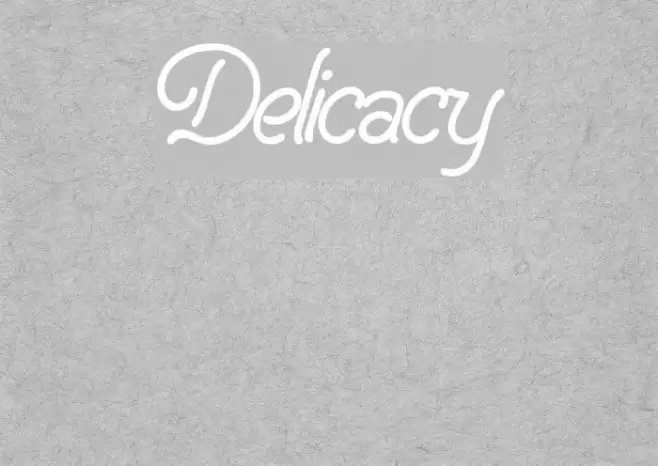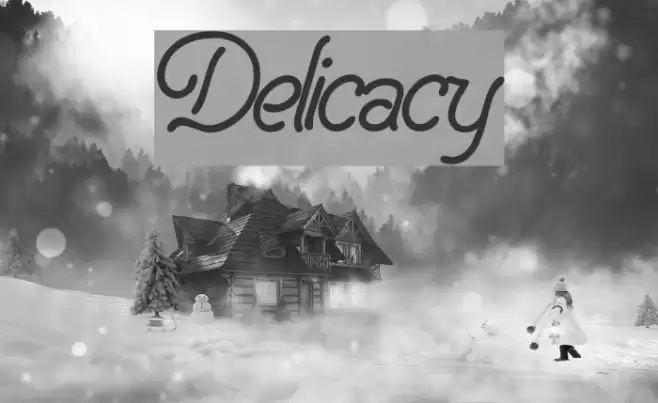
Delicacy Font
Delicacy Description
This font features an elegant and flowing script style, characterized by its smooth, cursive letterforms. The uppercase letters exhibit a graceful, looping design, while the lowercase letters maintain a consistent, fluid motion. The numerals are designed with a similar cursive flair, adding to the overall cohesive appearance. Special characters are crafted with the same attention to detail, ensuring a harmonious look throughout. The font's delicate strokes and subtle curves make it ideal for projects requiring a touch of sophistication and elegance.
An elegant, flowing script font with smooth, cursive letterforms from Uncategorized fonts.
- Proposed Projects: Ideal for wedding invitations, greeting cards, elegant branding, and decorative headings.
- Overall Style: Elegant
- Use Case: Headlines, Invitations, Decorative text